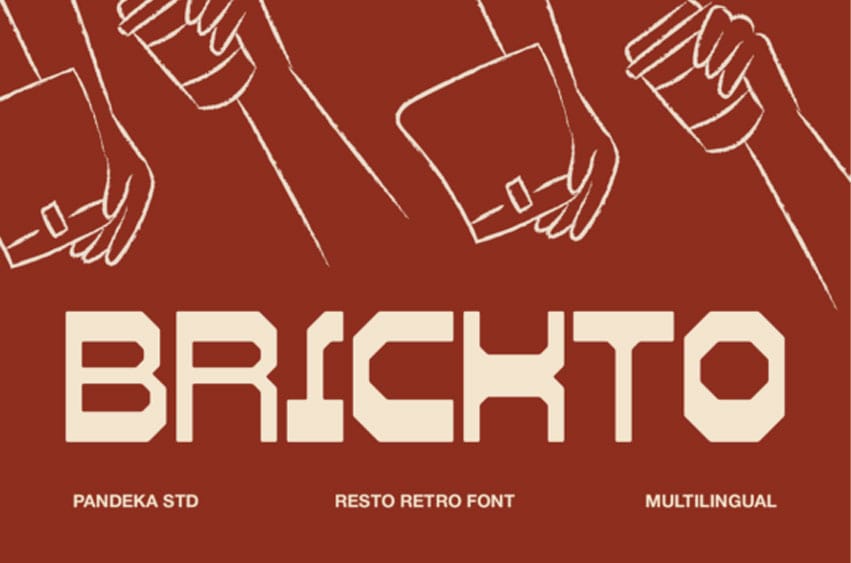
Brickto Font is a bold retro restaurant display font inspired by classic diners, vintage bakeries, and old-school food branding.
This bold, architectural display typeface combines “retro” nostalgia with “modern” industrial strength. Designed by Pandeka Std, the Brickto typeface features heavy, blocky letterforms with unique octagonal cuts that suggest the sturdiness of a brick wall. The glyphs in the Brickto font are designed for maximum impact, making it an incredible choice for urban streetwear brands, coffee shop logos, and high-impact editorial headlines.
This Brickto typeface is a “multilingual” powerhouse that ensures your brand speaks to a global audience with authority. The Brickto font works best in minimalist, two-tone layouts where its strong silhouette can take center stage. Pair the Brickto typeface with gritty textures or hand-drawn line art to create a “resto retro” vibe that feels both established and contemporary. It’s a font that builds a solid foundation for any brand identity.
Perfect for restaurant logos, bakery packaging, menu designs, café signage, posters, and retro-themed food branding, Brickto delivers a timeless resto vibe that feels playful, bold, and authentic. This font is ideal for designers who want to bring vintage charm and character into modern culinary and hospitality projects.